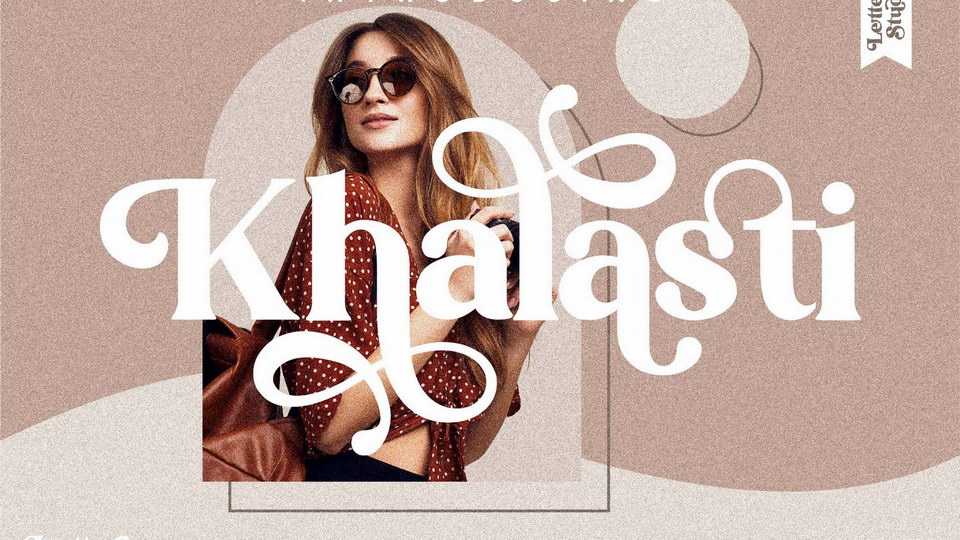
Download Khalasti font, a luxury serif typeface with beautiful swashes. Khalasti is suitable for any projects such as: logos, branding, homeware designs, product packaging, mugs, quotes, posters and more.
Designer: Letterena Studios